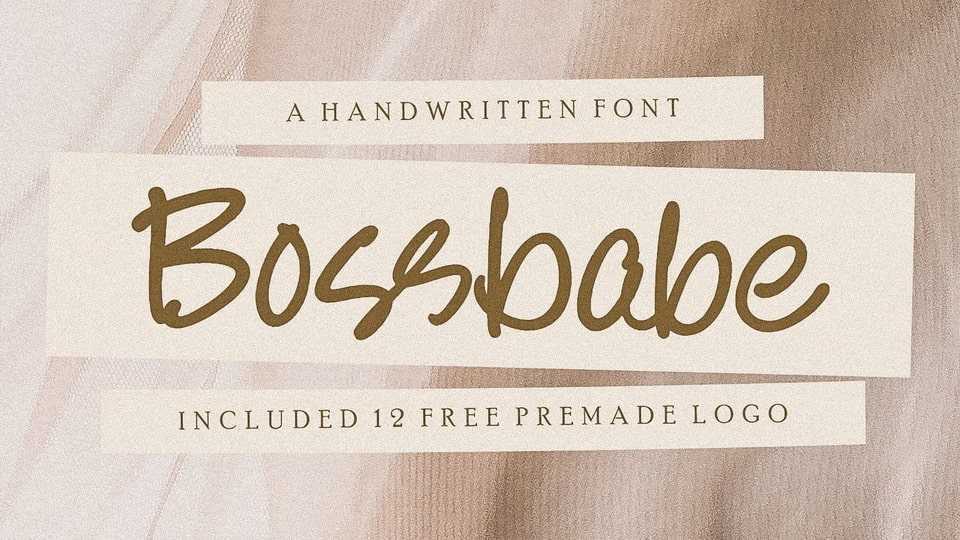
Download Bossbabe font, an elegant and clean typeface that is perfect for feminine and stylish logos. Bossbabe font has been specially designed to help you make all of your branding projects stand out from the crowd.